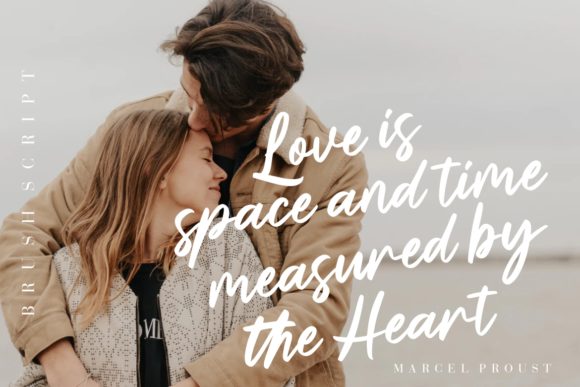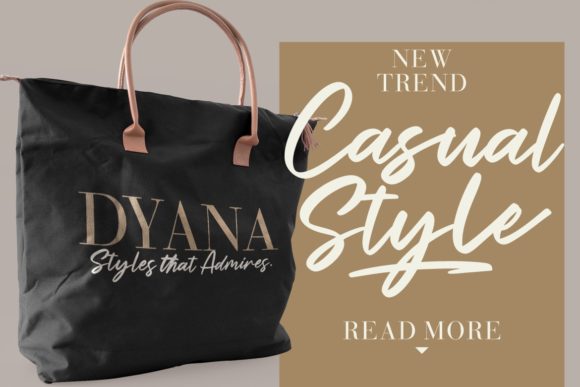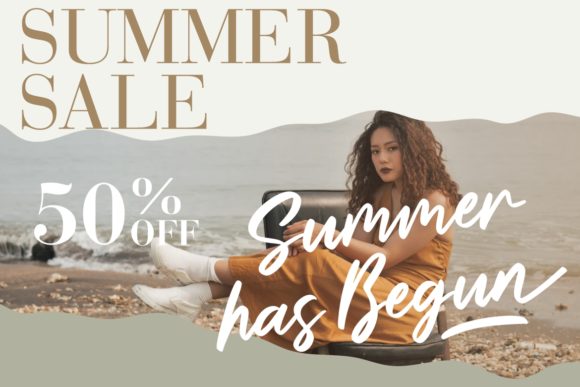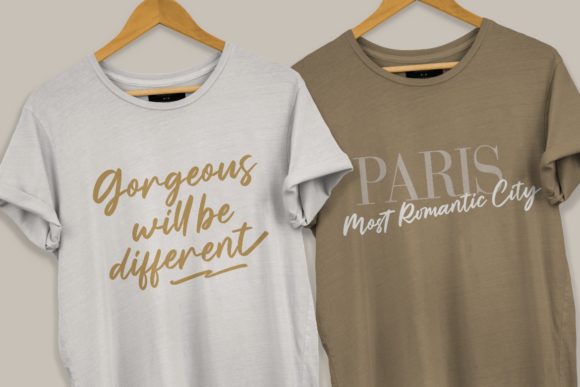
About Elisabeth Font
Elisabeth is an cursive brushed script font with a contemporary atmosphere and impeccable form, inspired by timeless classic calligraphy. Not too thin and not too thick, balanced and varied, this font was designed to enhance the beauty of your projects. Elisabeth is PUA encoded which means you can access all of the glyphs and swashes with ease!